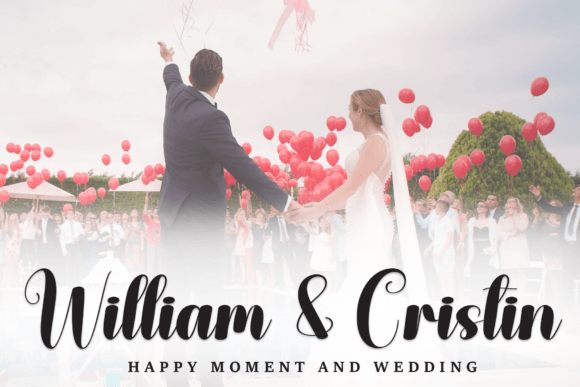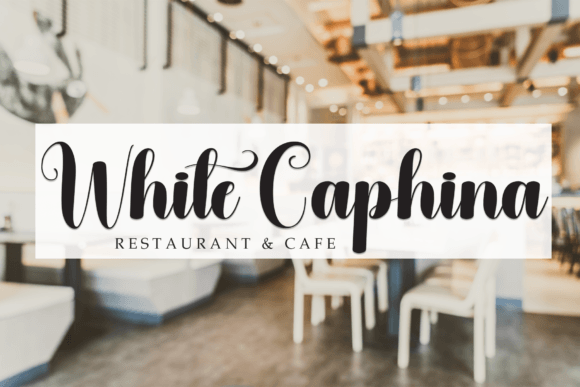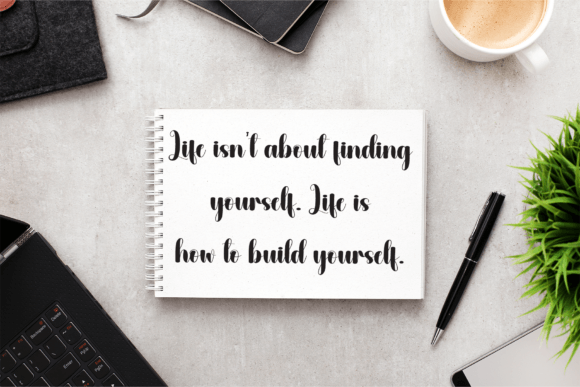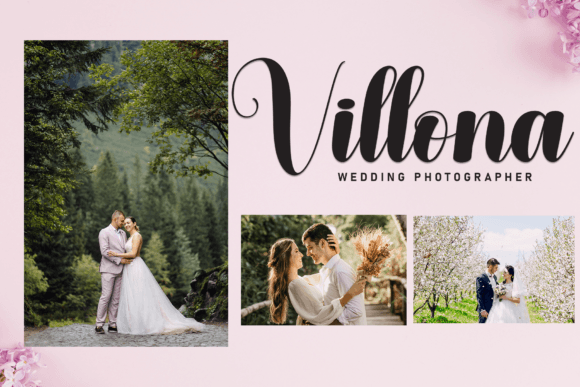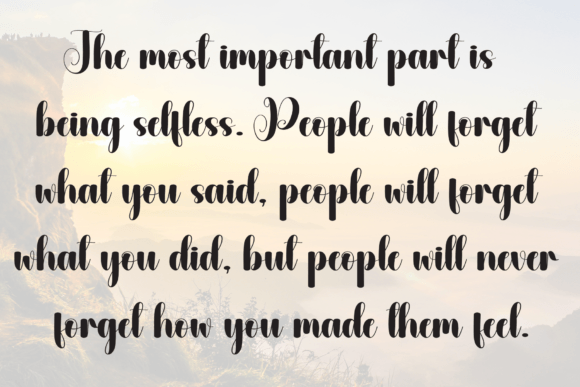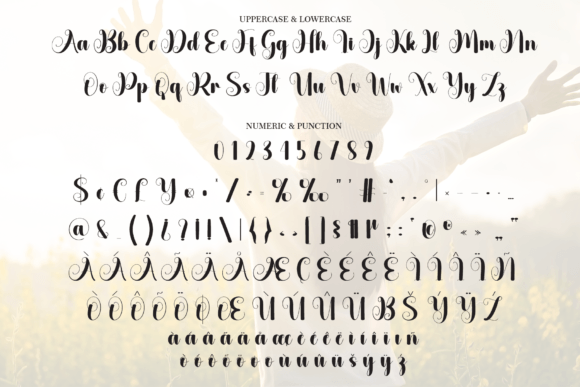
Introducing Beatitude Font: The Sweet and Friendly Handwritten Font for Your Design Needs
Are you looking for a font that can add a touch of sweetness and friendliness to your designs? Look no further than Beatitude Font! This beautiful handwritten font is perfect for creating wedding invitations, cards, and other designs that require a lovely and personal touch. In this article, we’ll dive into the features and benefits of Beatitude Font, and explore how you can use it to elevate your designs.
What is Beatitude Font?
Beatitude Font is a sweet and friendly handwritten font that is designed to bring a touch of warmth and personality to your designs. With its fresh and casual style, this font is ideal for creating a wide range of designs, from wedding invitations and cards to social media graphics and more. Whether you’re a designer, crafter, or DIY enthusiast, Beatitude Font is the perfect choice for adding a personal touch to your projects.
Key Features of Beatitude Font
So, what makes Beatitude Font so special? Here are just a few of its key features:
- Handwritten style: Beatitude Font has a beautiful, handwritten style that is perfect for creating personal and unique designs.
- Sweet and friendly: This font has a warm and inviting feel that is sure to make your designs stand out.
- Fresh and casual: Beatitude Font has a fresh and casual style that is perfect for creating modern and trendy designs.
- High-quality: This font is designed to be high-quality and easy to read, making it perfect for use in a wide range of designs.
Uses for Beatitude Font
So, what can you use Beatitude Font for? The possibilities are endless! Here are just a few ideas to get you started:
- Wedding invitations: Beatitude Font is perfect for creating beautiful and unique wedding invitations that will set the tone for your special day.
- Cards and stationery: This font is ideal for creating personalized cards and stationery that will make your loved ones feel special.
- Social media graphics: Beatitude Font can be used to create eye-catching social media graphics that will help you stand out from the crowd.
- DIY projects: Whether you’re creating a craft project or a DIY sign, Beatitude Font is the perfect choice for adding a personal touch.
Tips for Using Beatitude Font
Here are a few tips for using Beatitude Font in your designs:
- Pair it with other fonts: Beatitude Font pairs well with a wide range of other fonts, so don’t be afraid to experiment and find the perfect combination for your design.
- Use it for headings and titles: This font is perfect for use in headings and titles, where its sweet and friendly style can really shine.
- Add some personality: Beatitude Font is all about adding a personal touch to your designs, so don’t be afraid to get creative and add your own personality to your projects.